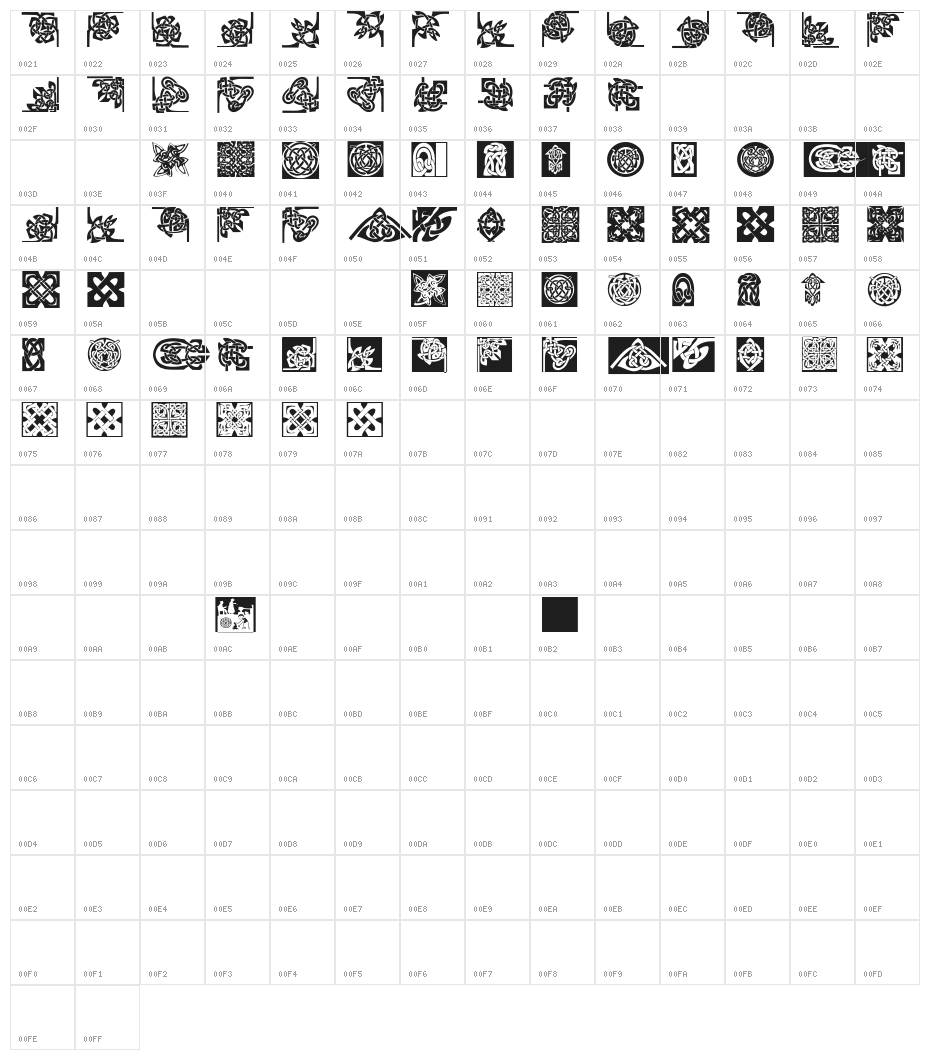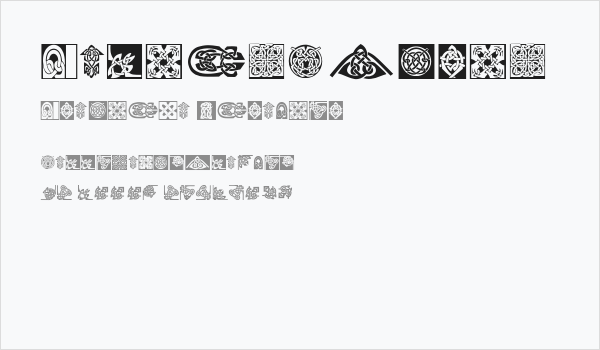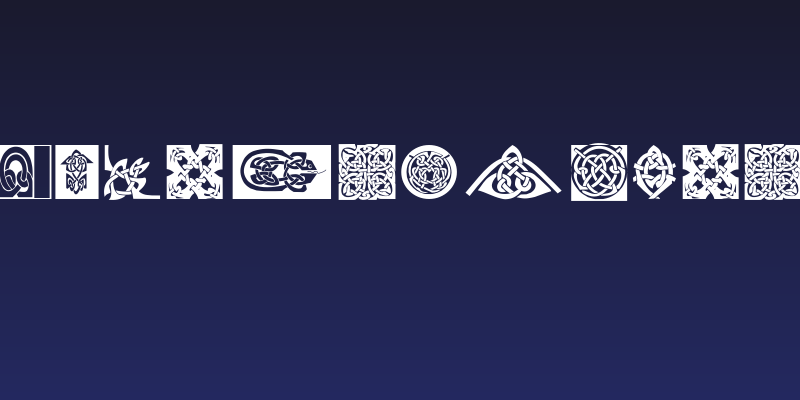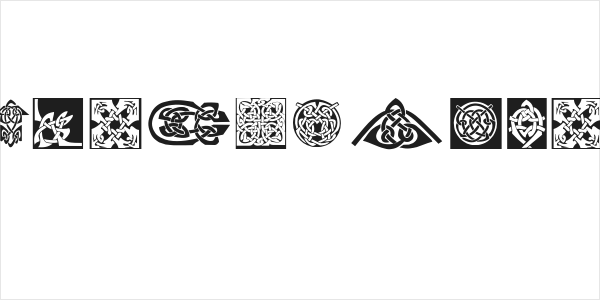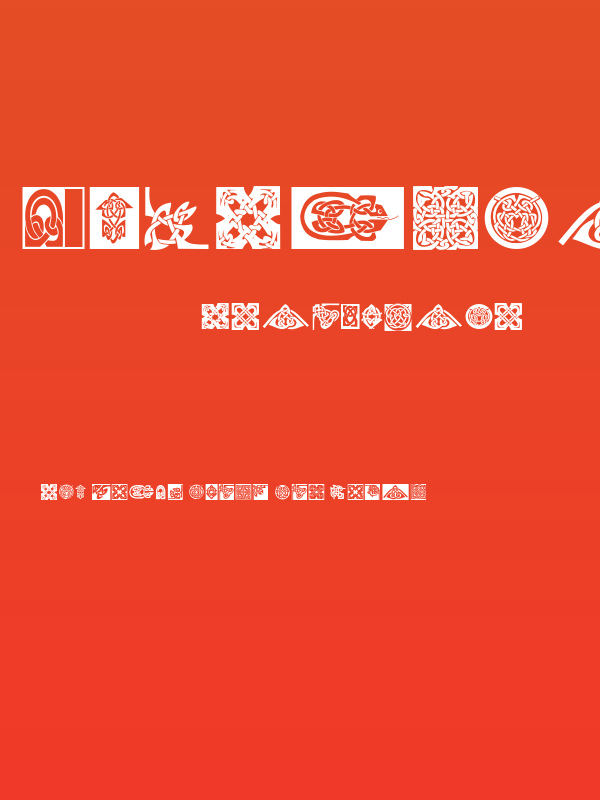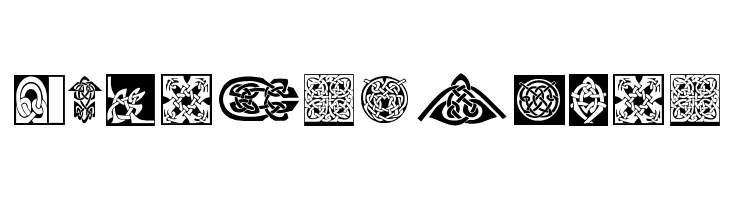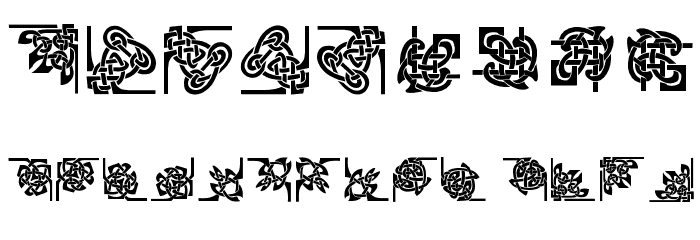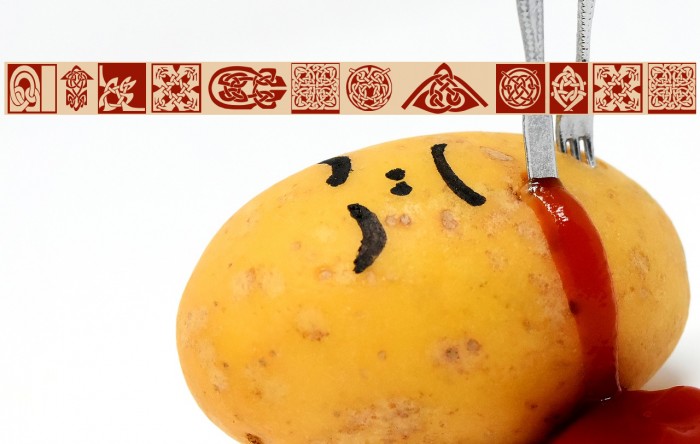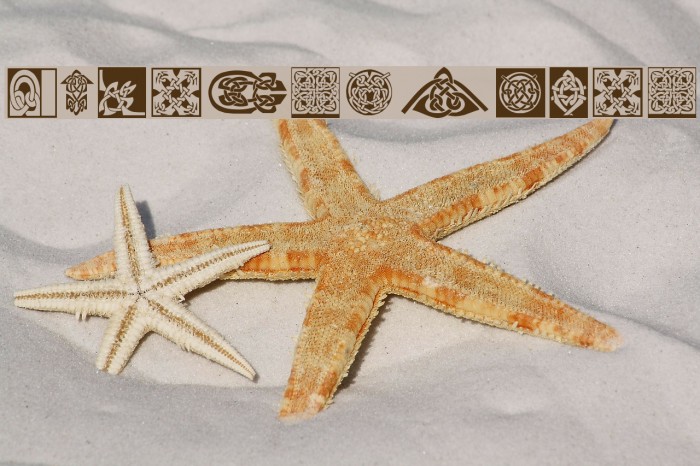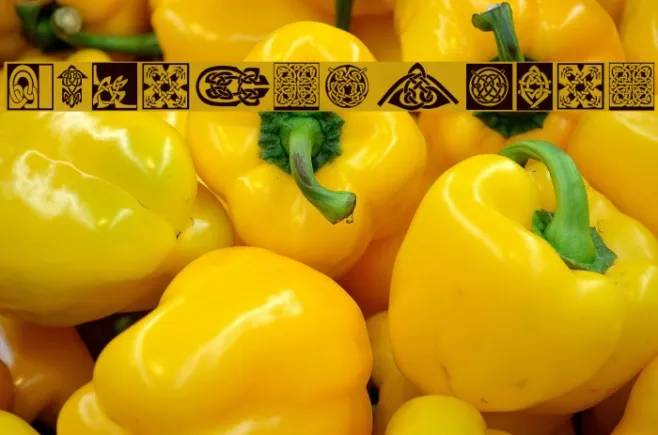
CeltishParts Font
CeltishParts Description
This font is a decorative collection of intricate Celtic knot designs, each character resembling a unique pattern of interwoven lines and shapes. The designs are highly detailed, featuring loops and twists that create a sense of continuous flow and movement. The characters are enclosed in square or rectangular frames, enhancing their ornamental appearance. The use of black and white contrast highlights the complexity and elegance of each design, making them stand out vividly. This font is ideal for projects that require a touch of ancient or mystical aesthetics, as it captures the essence of traditional Celtic art.
| Use Case | Logos, Decorative headings, Invitations |
| Proposed Projects | Ideal for creating logos, decorative headings, invitations, or any project needing a mystical or ancient Celtic theme. |